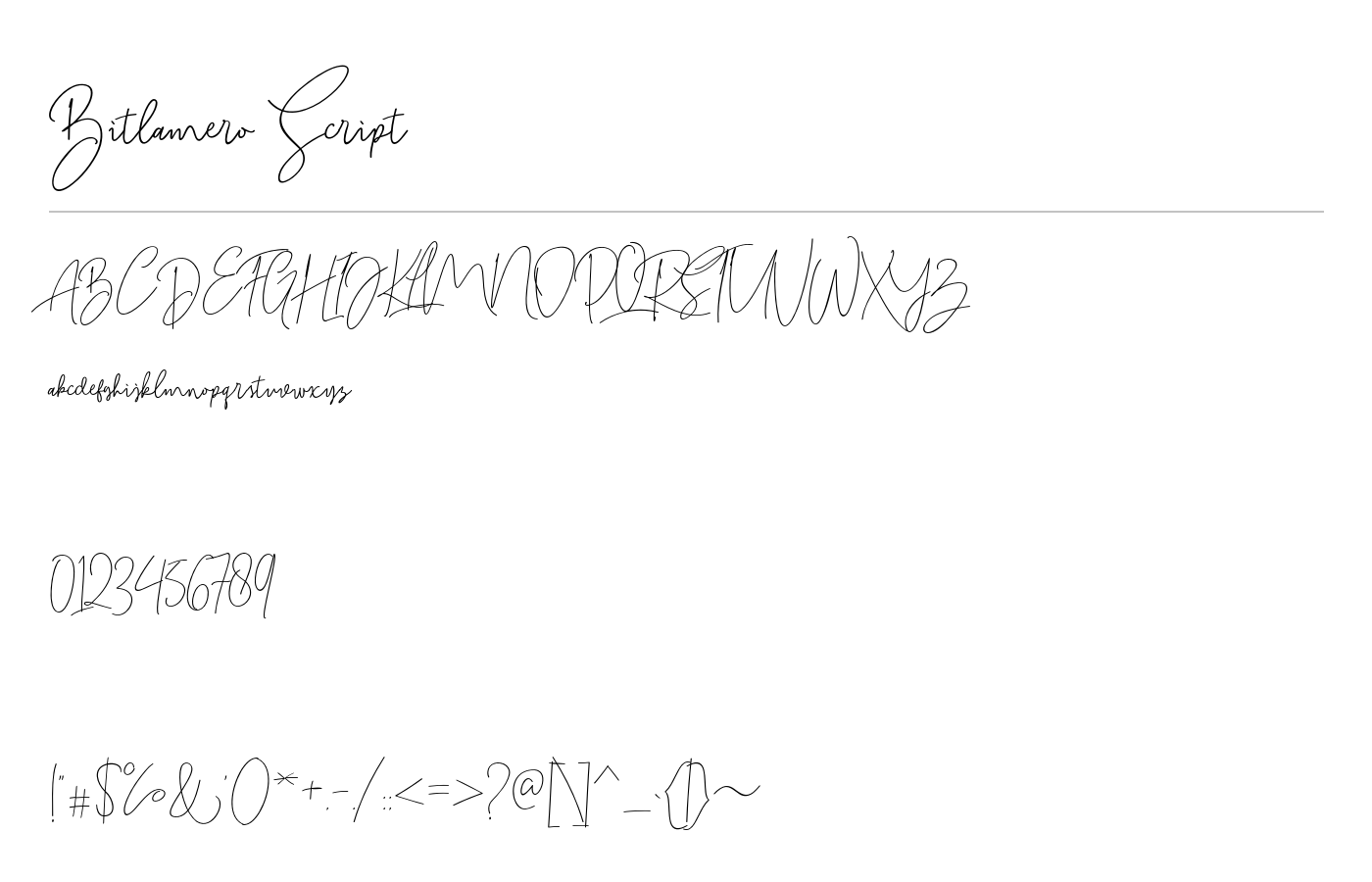
Bitlamero Script is a delicate, thin handwritten script font with an elegant and airy feel, characterized by its flowing, connected strokes that mimic natural cursive writing. Its light weight, tall x-height, and slightly whimsical letterforms make it perfect for adding a touch of sophistication and personal charm to invitations, branding, and editorial designs. This font works best in decorative uses where a graceful, refined, and approachable style is desired.
Bitlamero Script Font
About Bitlamero Script Font